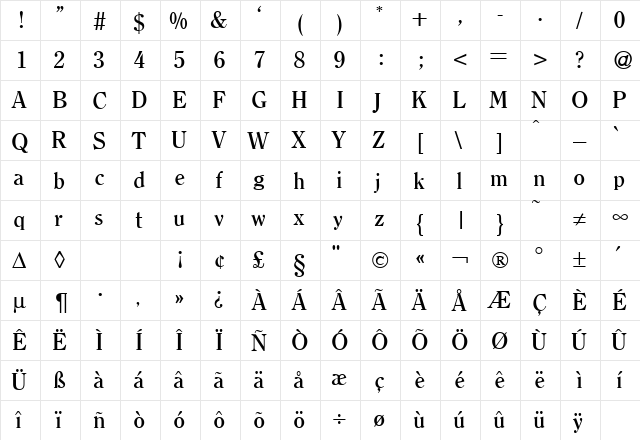
ClearfaceOldStyle Regular
Design Context for ClearfaceOldStyle Typeface
ClearfaceOldStyle brings classic typographic sensibility to the table — its serifs and measured letterforms reflect centuries of print heritage.
Pro Tip: Set ClearfaceOldStyle with slightly loose tracking in headlines to let each letterform's detail read clearly at display sizes.